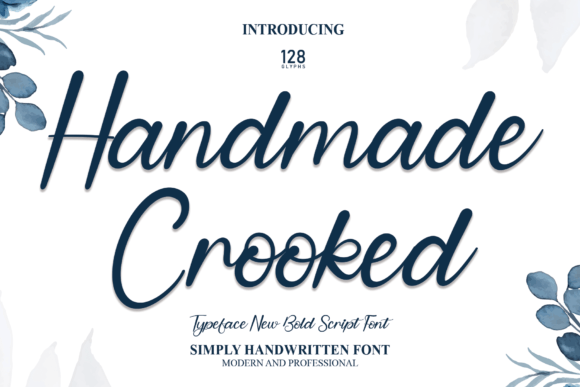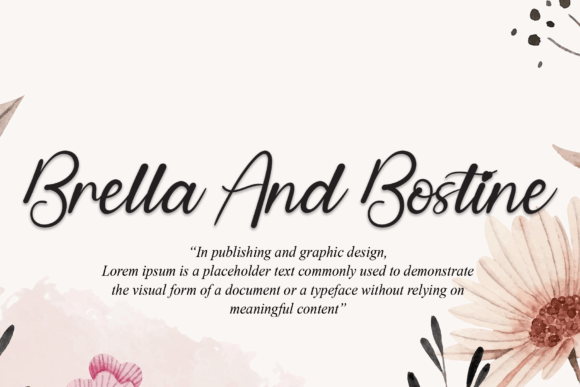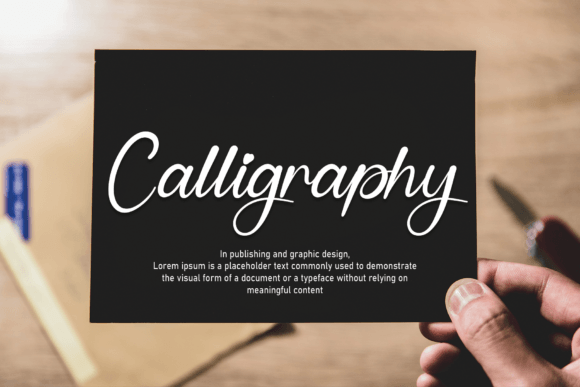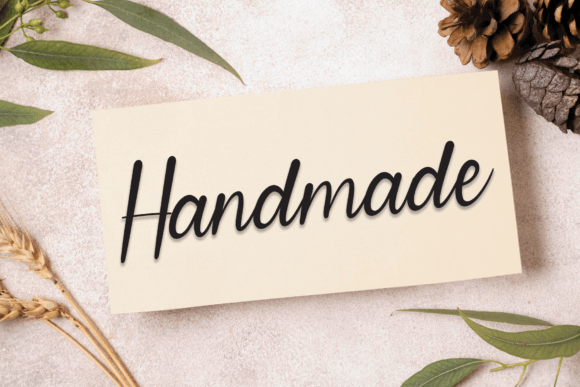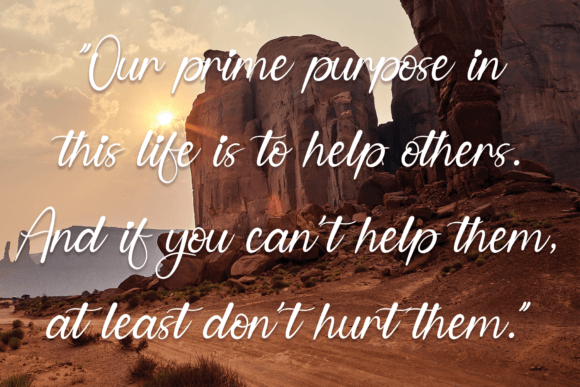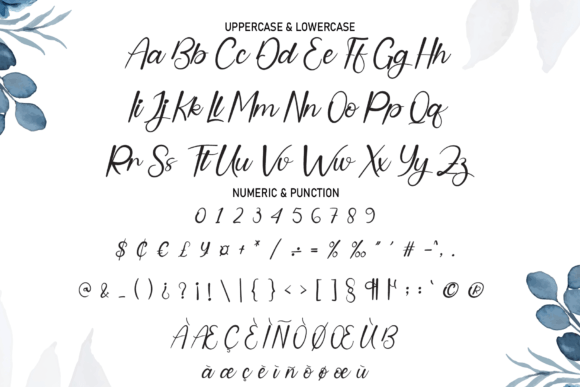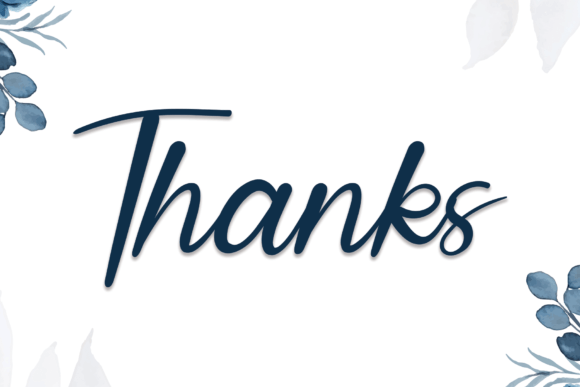
Handmade Crooked Font
About Handmade Crooked Font
Handmade Crooked Font is a beautifully crafted handwritten typeface that strikes a perfect balance between charm and elegance. It brings an authentic and personal touch to any design, making it an excellent choice for projects that require a natural handwritten feel.
Elegant Handwritten Style
The unique crooked style of this font adds character and warmth. Despite its playful irregularities, Handmade Crooked maintains a refined elegance that makes it suitable for a wide range of uses. Its flowing strokes and delicate details enhance readability while preserving a handcrafted vibe.
Ideal for Special Occasions
This font shines on wedding invitations, thank you cards, and greeting cards. Handmade CrookedFont adds a romantic and heartfelt ambiance to your messages, helping your designs stand out with grace and personality.
Versatile for Branding and Business
Beyond personal projects, Handmade CrookedFont works wonderfully for logos, business cards, and other branding materials. It offers a genuine, handcrafted appearance that can help establish a warm and inviting brand identity, perfect for businesses seeking an approachable yet professional look.
Timeless and Adaptable
Handmade CrookedFont offers timeless appeal with its classic handwritten style, making it versatile enough for both modern and vintage-inspired designs. This adaptability ensures your projects remain fresh and elegant regardless of trends.
Why Choose Handmade CrookedFont?
Choosing Handmade Crooked means embracing a font that combines warmth, elegance, and versatility. Its unique crooked charm will elevate your creative projects with a personal and memorable touch, leaving a lasting impression on your audience.